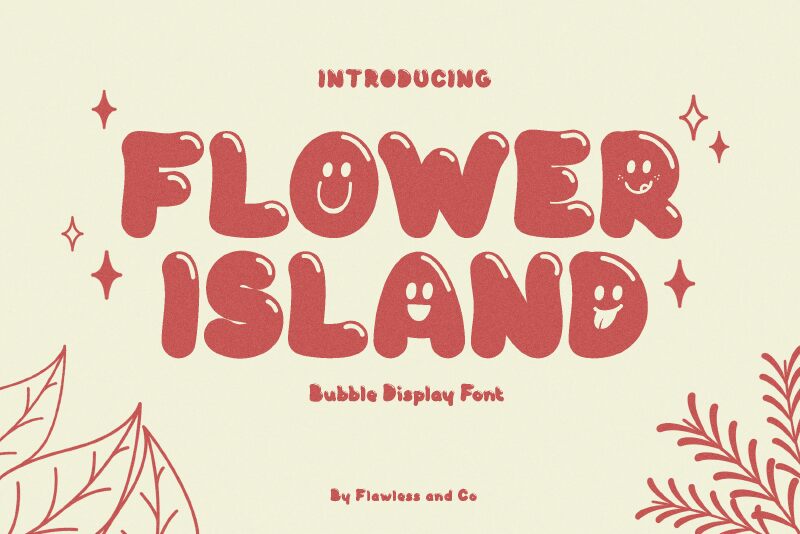
Flower Island Regular
\nFlower Island font by Achmad Yani of Flawless and co. combines a sense of playfulness and casualness in a bold and groovy design. The display font features rounded letters that are bubbly, whimsical, and friendly which makes it perfect for any designer seeking to put a smile on their readers’ faces.
Use it to decorate comic book design ideas, editorial headlines and subheadlines, children’s books covers, posters or flyers for events at kindergartens or schools. Let it shine on merchandise packages like t-shirt designs meant for children – all for free!